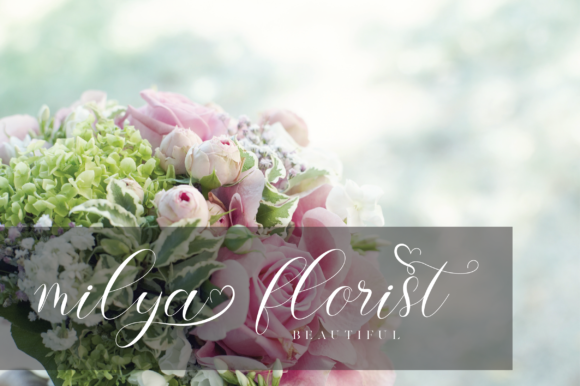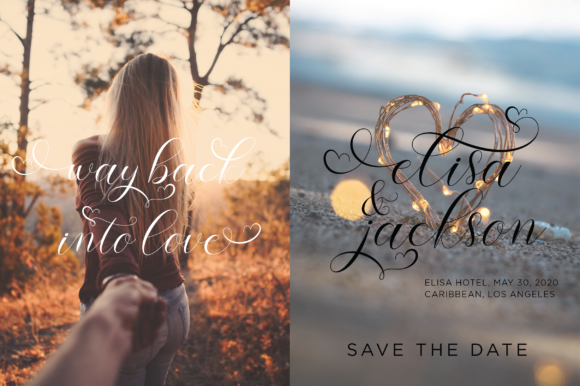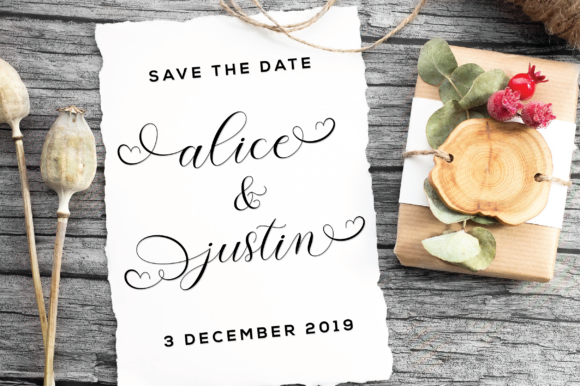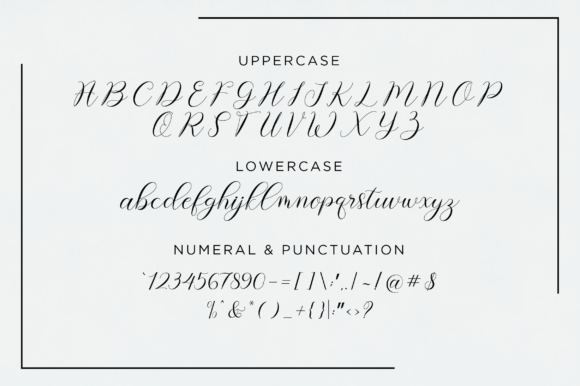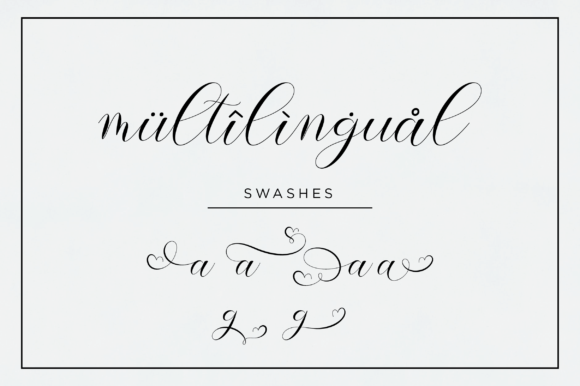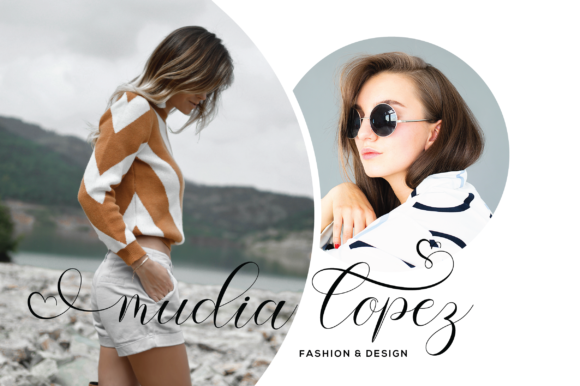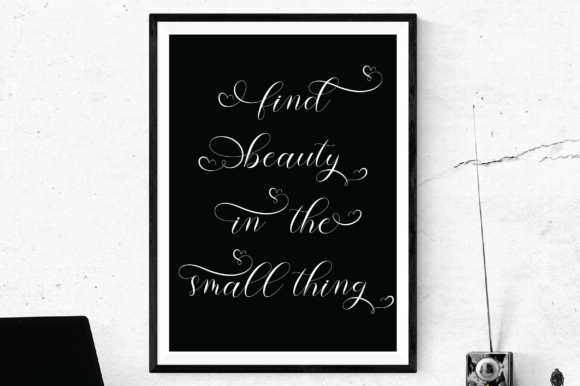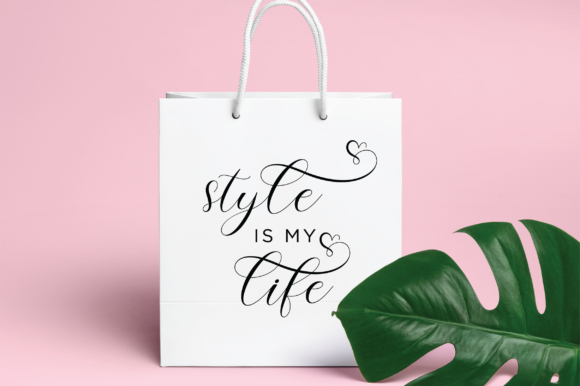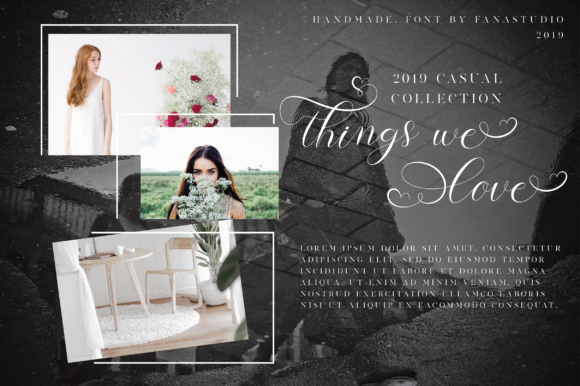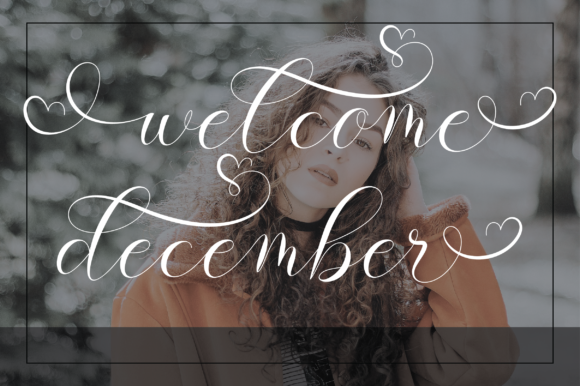
HomeScript FontsAlyana Font Script Fonts Alyana Font FacebookXPinterestWhatsApp Alyana Font Poster 2 Alyana Font Poster 3 Alyana Font Poster 4 Alyana Font Poster 5 Alyana Font Poster 6 Alyana Font Poster 7 Alyana Font Poster 8 Alyana Font Poster 9 Alyana Font Poster 10 Alyana Font Poster 11 Alyana Font Poster 12 Alyana Font Poster 13 Alyana Font Poster 14 About Alyana Font Alyana is a beautiful and delicate script with a unique charm. Fall in love with its bold feel! DOWNLOAD NOW People also explored Warm Hug Font Retro Mountain Font Royal Voyage Font Coffee Retro Christmas Font Husk Beering Playing Font Berlineta Font Miolleta Script Font 359 0 TagsAlyana Font Previous articleNice Shine FontNext articlePhoenix Script Trio Font LEAVE A REPLY Cancel reply Comment: Please enter your comment! Name:* Please enter your name here Email:* You have entered an incorrect email address! Please enter your email address here Website: Save my name, email, and website in this browser for the next time I comment. Personal Use Free Mixed Artistry Personal Use Free Read more about this font Messages Personal Use Free Read more about this font Alphakind Personal Use Free Read more about this font Coolvetica Font Personal Use Free Read more about this font BLOG Fonts That Capture the Spirit of New York City New York City is more than just a place—it’s an experience, a rhythm, a visual language... Exploring Font Trends Transform Your Website: Elevate Your Typography with 7 Best Web Font Generators Where to Buy American Fonts Online in 2024